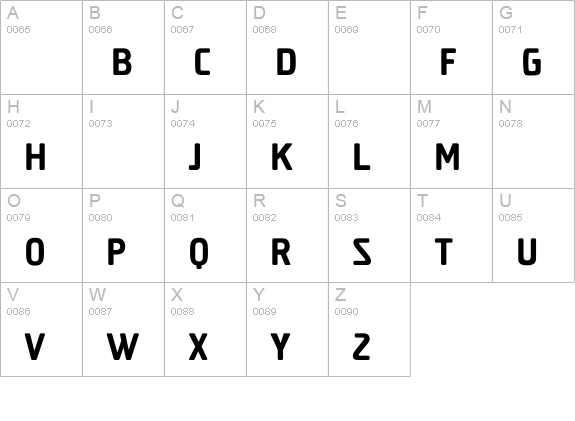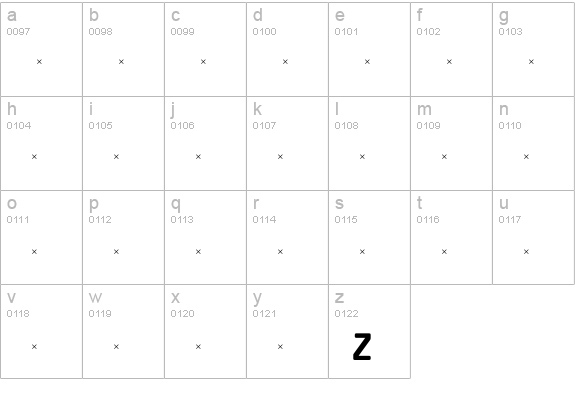
ElstonLight Font Details
Introducing ElstonLight font, a sleek and modern typeface that exudes sophistication and elegance. With its clean lines and refined curves, ElstonLight is perfect for adding a touch of sophistication to any design project. Whether you're creating a logo, branding materials, or a website, this font will surely make your text stand out. What's even better is that ElstonLight is available for free at FontsMarket.com! You can easily download and start using this beautiful font right away. Don't miss out on this amazing opportunity to enhance your designs with the stunning ElstonLight font.